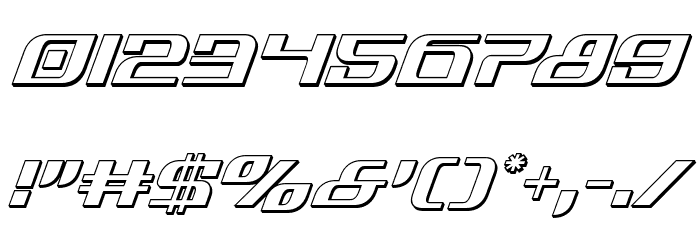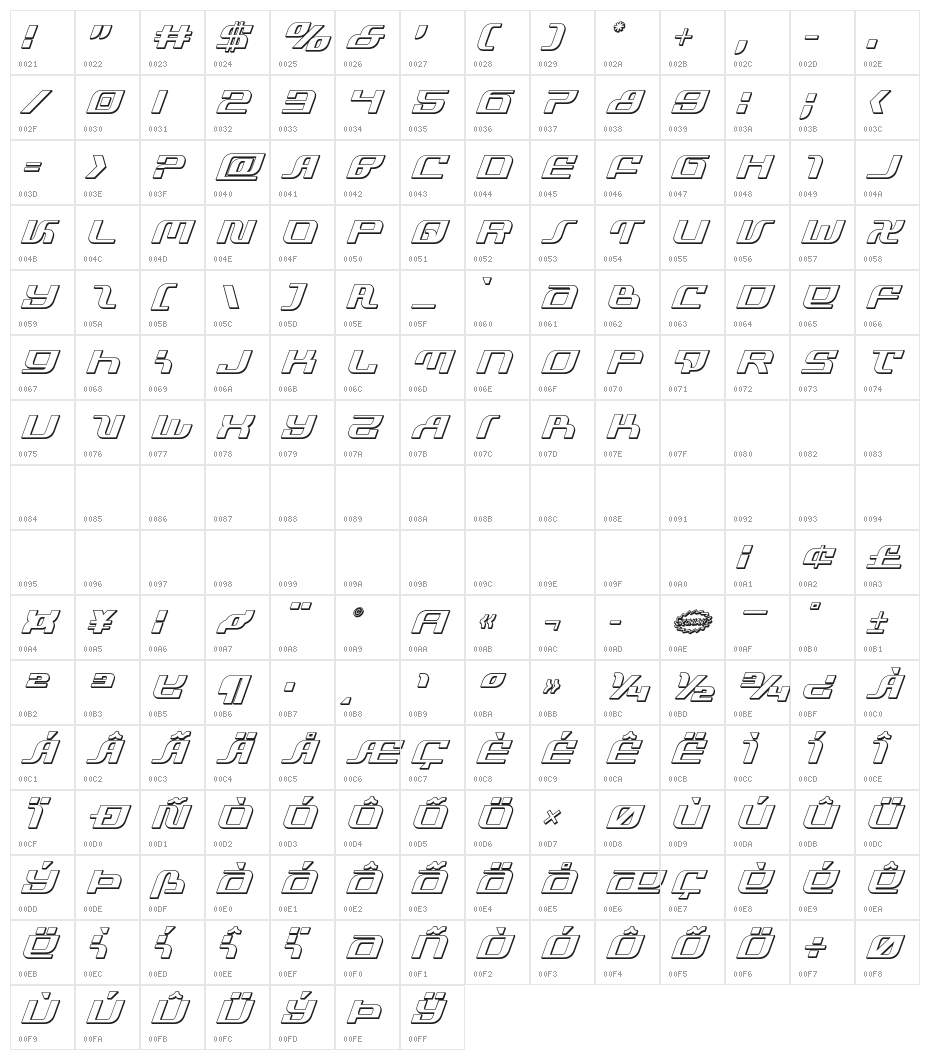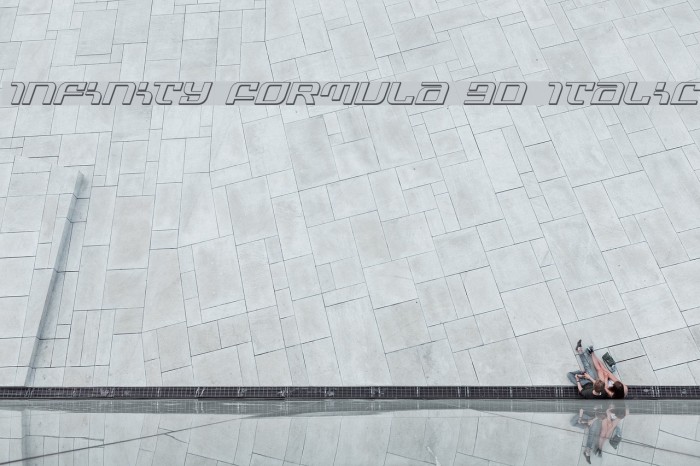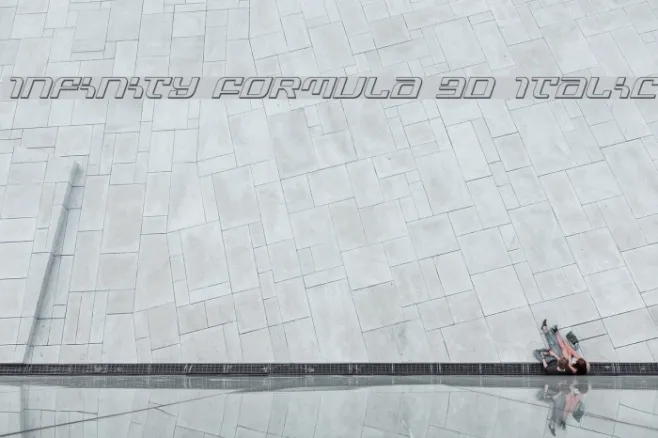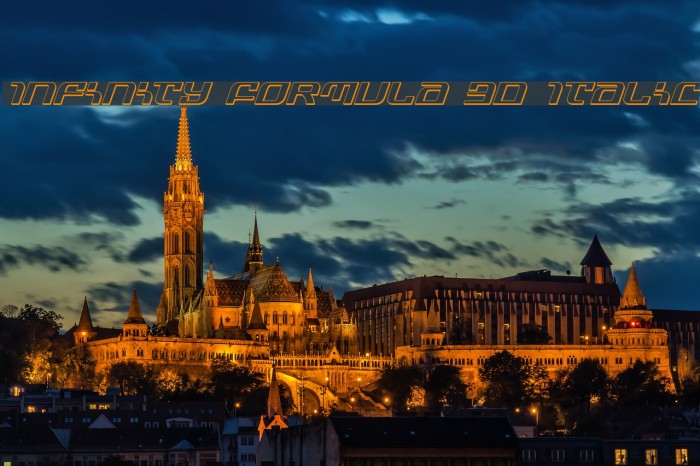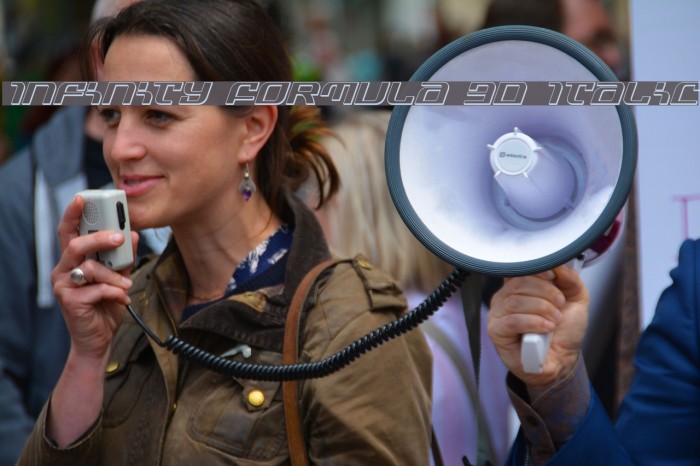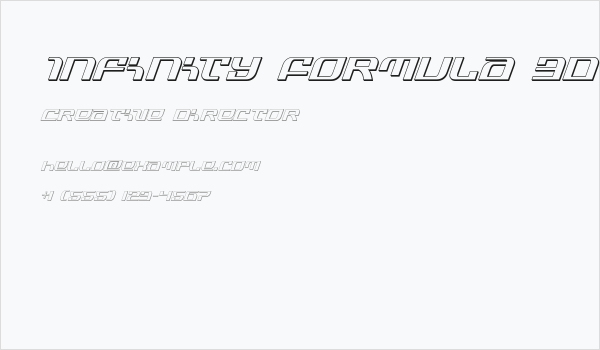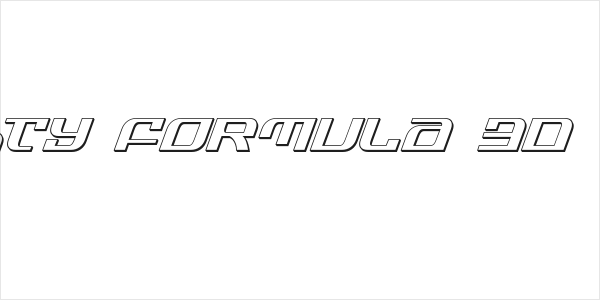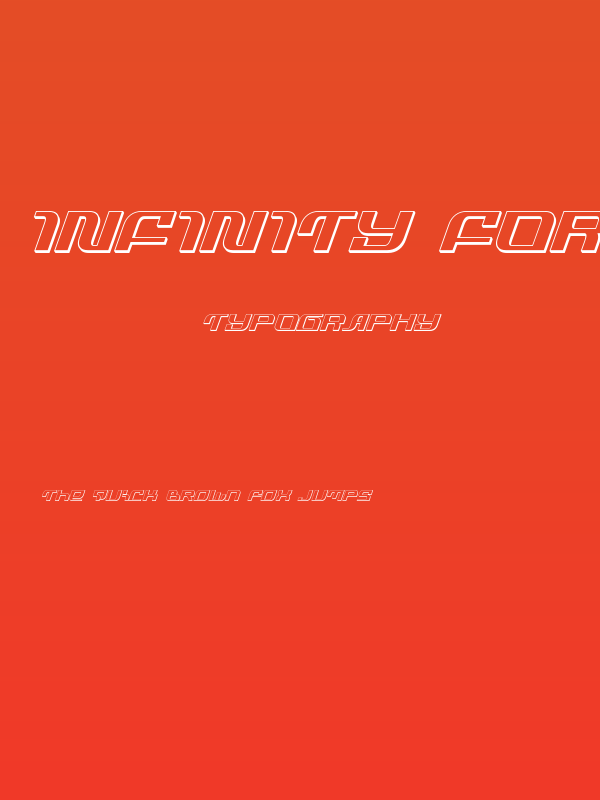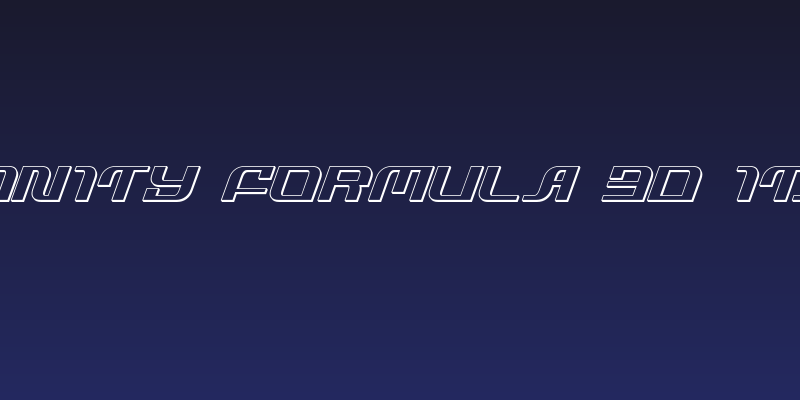
Infinity Formula 3D Italic Font
Infinity Formula 3D Italic Description
This font features a futuristic and dynamic design with a 3D effect, characterized by its bold, italicized letterforms. The characters have a distinct outline that gives them a layered appearance, enhancing the sense of depth and movement. The angular and geometric shapes of the letters contribute to a modern and sleek aesthetic, making it ideal for projects that require a cutting-edge look. The font maintains a consistent stroke width, providing a uniform appearance across all characters. Its unique style is both eye-catching and versatile, suitable for a variety of creative applications.
Proposed ProjectsIdeal for sci-fi themed designs, video game titles, tech branding, and modern advertising.